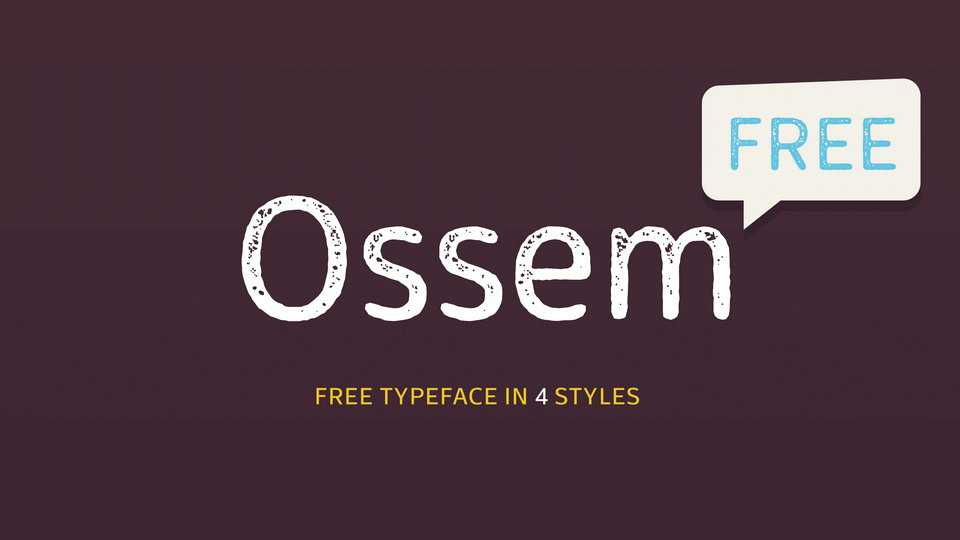
Download Ossem font family, a sans serif typeface in four styles – Regular, Rounded, Rough and Rust. Great for vintage designs, including logos, labels, branding, fashion and apparel, social media and more.
Designer: Typedepot